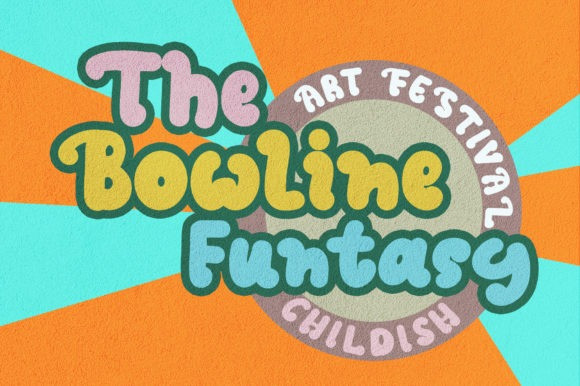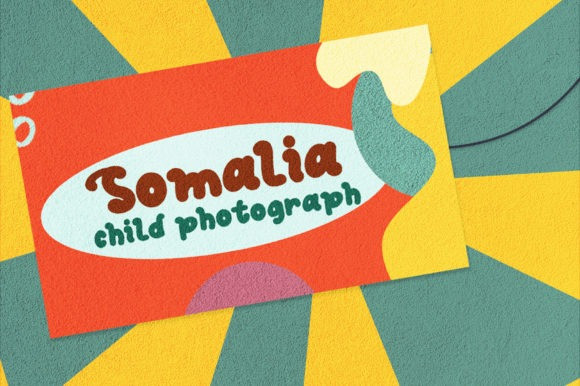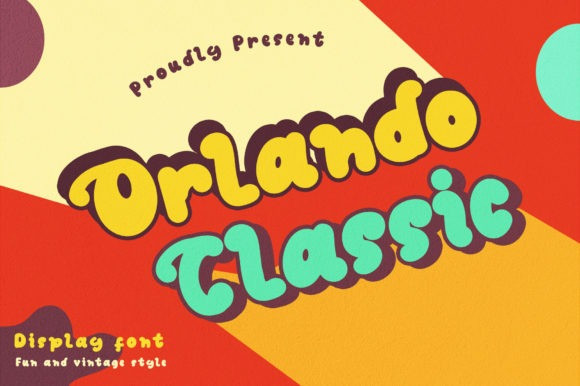
Orlando Classic Font
Orlando Classic Display font is a semi-bold display design font with a unique shape. It has a vintage feel but looks cute. This font is perfect for children’s products, packaging designs, children’s t-shirts, or vintage products. Enjoy this font and make your product look a miracle!